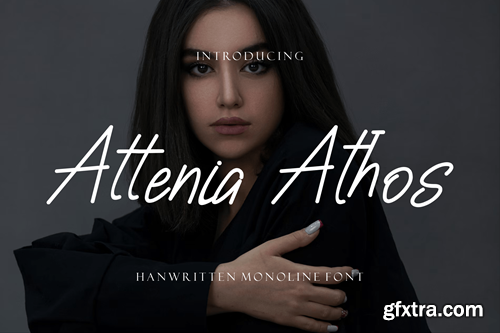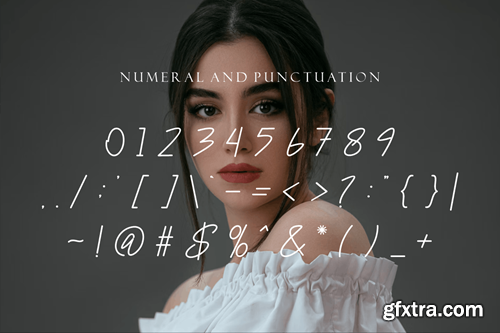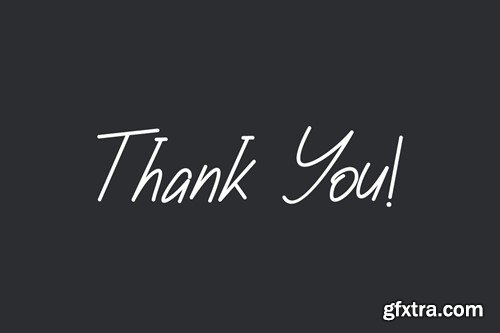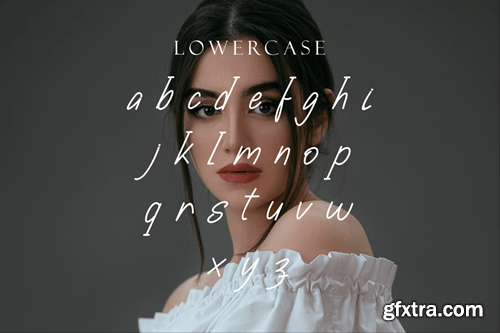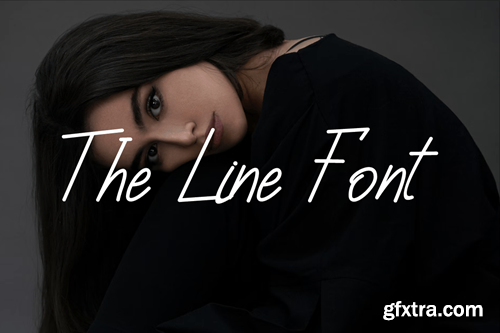
Attenia Athos Handwritten Font.
Introducing our new product the name is ** Attenia Athos Handwritten Font**. Modern Decorative Fonts that feels beautiful classy, elegant, and modern. This font is perfectly suited for a wide variety of projects, such as signature, stationery, logo, wedding, typography quotes, magazine or book cover, website header, branding, packaging design, and more. Also, fashion-related branding or editorial design displays both masculine and feminine qualities. Features: File Included: – Attenia Athos Handwritten Font( OTF, TTF ) Image: -not included